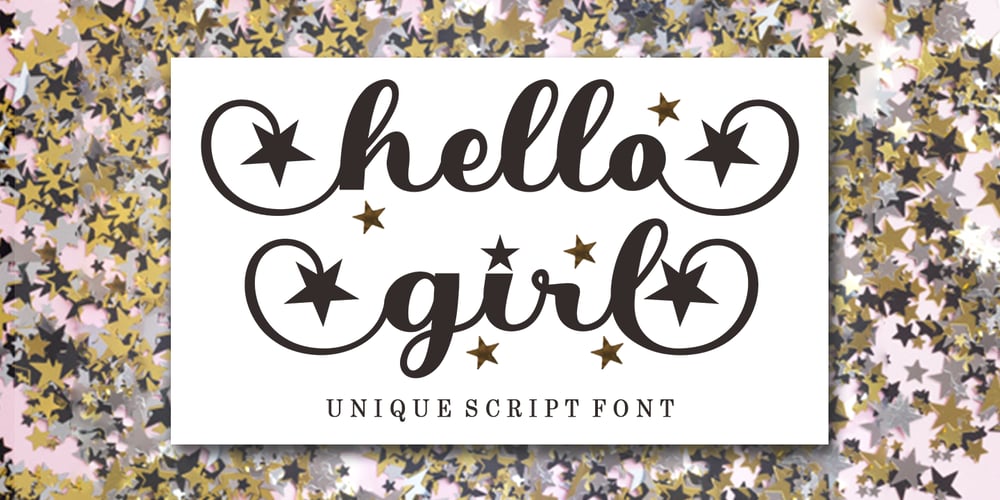
Hello Girl
Hello Girl font
Hello Girl Font Family was designed by Mu Fazzal and published by Bosstypestudio. Hello Girl contains 4 styles and family package options. Hello Girl with a smooth handwriting style and very pretty and lovely. Hello Girl is perfect for branding projects, home appliance design, product packaging, use in business cards, invitation cards, etc. Just like a stylish text overlay to a wallpaper or anything that needs a touch of love.